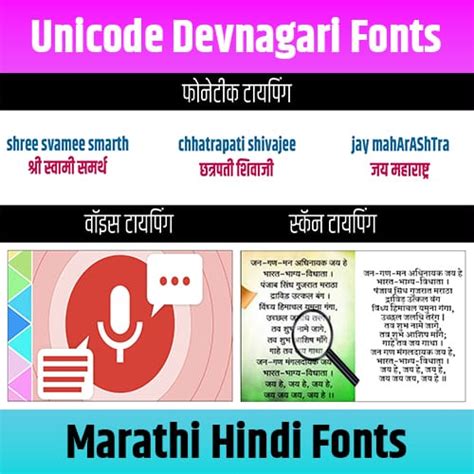
Marathi & Hindi Fonts: A Comprehensive Guide
Hey guys! Ever found yourself staring at your screen, needing to type in Marathi or Hindi, but feeling totally lost with the fonts? You’re not alone! Choosing the right font can seriously make or break how your content looks, whether it’s for a personal blog, a business project, or just a social media post. Today, we’re diving deep into the awesome world of Marathi and Hindi fonts , covering everything you need to know to make your text pop and be super readable. We’ll chat about why fonts matter, the popular choices out there, how to find and install them, and even some cool tips for using them effectively. So grab a chai, get comfy, and let’s get this font party started!
Why Fonts Matter for Marathi and Hindi
Alright, let’s get real for a sec. Why should we even care about which font we use for Marathi and Hindi? Well, fonts are basically the voice of your text . Think about it: the same words can sound formal, friendly, playful, or serious depending on the typeface. For Indian languages like Marathi and Hindi, this is super important because these scripts have their own unique beauty and structure. Using the wrong font can make the text look jumbled, hard to read, or even disrespectful to the language itself. A good font ensures clarity , making sure your message comes across loud and clear. It enhances readability, which is key for keeping your audience engaged. Imagine trying to read a novel printed in a tiny, fancy script – you’d probably give up pretty quickly, right? The same applies here. For businesses, a well-chosen font builds brand identity and professionalism. For bloggers and content creators, it helps create a distinct visual style that resonates with their audience. Plus, let’s be honest, a visually appealing font just makes reading more enjoyable. It’s all about making that connection with your reader through aesthetics and ease of understanding. So yeah, choosing the right font isn’t just a minor detail; it’s a crucial part of effective communication when dealing with the rich and beautiful scripts of Marathi and Hindi. It’s your first impression, your visual handshake, and the foundation of a great reading experience. Don’t underestimate the power of a good typeface, guys!
When it comes to typing in Marathi, there are a bunch of awesome fonts that have become super popular over the years. These aren’t just random fonts; they’re the ones that have stood the test of time and are widely recognized for their clarity and aesthetic appeal. One of the most iconic and widely used Marathi fonts is Kruti Dev 010 . You’ll see this font everywhere , especially in government documents, older publications, and even many websites. It has a very traditional and clear look, making it a go-to for formal communication. It’s a bit of a classic, like that reliable old friend who’s always there for you. Then we have the Mangal font . This one is particularly important because it’s a Unicode-based font, which means it’s much easier to use across different platforms and software. Mangal is known for its clean lines and modern feel, making it a great choice for contemporary websites, digital content, and general use. It’s definitely more user-friendly for digital applications compared to some of the older, non-Unicode fonts. Another solid contender is Arial Unicode MS . While not exclusively a Marathi font, it supports a vast range of Unicode characters, including Devanagari script, making it a versatile option. It’s a safe bet if you need something that works universally and looks clean. For those looking for something a bit more stylized, fonts like Lohit Marathi offer a slightly different visual flair while maintaining good readability. Lohit Marathi is often praised for its balance between traditional aesthetics and modern design principles. And let’s not forget about Devanagari MT . This is another Unicode font that provides a clear and legible representation of Marathi text. Many designers and developers prefer it for its consistency and professional appearance. When choosing, think about where you’ll be using the font. For official or print materials, Kruti Dev might be the traditional choice. For web and digital use, Unicode fonts like Mangal, Arial Unicode MS, Lohit Marathi, or Devanagari MT are generally the way to go because they ensure compatibility and ease of use. Remember, the goal is to make your Marathi text accessible and pleasant to read, and these popular fonts are your best bet for achieving that!
Just like with Marathi, Hindi has its own set of go-to fonts that make typing and reading in this beautiful language a breeze. The Hindi script, Devanagari, is used for both languages , so you’ll find a lot of overlap, but there are also specific fonts that are particularly favored for Hindi. Kruti Dev 010 makes another appearance here! Yep, it’s a classic for Hindi too, especially in certain types of official documents and typing contexts. It’s a non-Unicode font, which means it might require special software or keyboard layouts to use effectively, but its widespread use means many people are familiar with it. For more modern and web-friendly applications, Mangal is again a top pick. As a Unicode font, it offers great compatibility and a clean, readable appearance that’s perfect for websites, blogs, and digital communications. It’s the kind of font that just works seamlessly across different devices and platforms. Arial Unicode MS is another fantastic choice for Hindi, offering broad compatibility and a neutral, professional look. If you need a font that’s guaranteed to display correctly almost anywhere, this is a solid option. Lohit Hindi is a popular open-source font that provides a clear and attractive rendering of Hindi text. It’s often used in Linux environments and for general digital use, offering a good balance of style and legibility. For a more traditional yet accessible feel, Devanagari MT is also widely used for Hindi. It’s another Unicode font that ensures your Hindi text will look good and be easy to read on most devices. Beyond these, you might encounter fonts like Nirmala UI , which is a Microsoft font designed to support multiple scripts, including Devanagari, making it a good choice for Windows users seeking a clean, modern look for Hindi. When selecting a Hindi font, consider the context. For formal government work or specific legacy systems, Kruti Dev might be necessary. However, for almost all modern digital purposes – websites, emails, social media, documents – sticking with Unicode fonts like Mangal, Arial Unicode MS, Lohit Hindi, Devanagari MT, or Nirmala UI will give you the best experience in terms of compatibility, readability, and ease of use. These fonts ensure your message in Hindi is not just seen, but read and understood with clarity and style.
Using Unicode vs. Non-Unicode Fonts
This is a really important point, guys, and it can save you a lot of headaches: the difference between Unicode and non-Unicode fonts . Understanding this is key to making sure your Marathi and Hindi text is accessible and works everywhere. Unicode is basically a universal standard for encoding characters. Think of it as a giant, international dictionary that assigns a unique number to every letter, symbol, and emoji, no matter the language. For Marathi and Hindi, using Unicode fonts means the characters are represented in a standardized way. This is hugely beneficial because it ensures your text will display correctly across different devices, operating systems, and software without any special tricks. Fonts like Mangal, Lohit Marathi, Devanagari MT, and Arial Unicode MS are Unicode-based. They are generally easier to find, install, and use, especially for web content and modern applications. Non-Unicode fonts , on the other hand, use older, proprietary encoding systems. Kruti Dev 010 is the most famous example for Marathi and Hindi. While these fonts are still widely used in certain contexts (like specific government forms or older typing systems), they come with limitations. The biggest issue is compatibility. If someone doesn’t have the exact same non-Unicode font installed on their computer, or the correct keyboard layout, they might see gibberish instead of your beautiful Marathi or Hindi text. It can look like a bunch of random symbols! This makes them less ideal for websites or anything intended for a broad audience. If you’re working with older documents or systems that specifically require a non-Unicode font, you’ll need to be mindful of the keyboard mappings and ensure others have the necessary software. However, for most new projects, especially anything digital, sticking with Unicode fonts is the smartest move . It guarantees your content will be readable and accessible to everyone, which is ultimately what we want, right? It streamlines the whole process and makes sharing your work so much smoother.
Tips for Using Marathi and Hindi Fonts Effectively
Alright, we’ve covered why fonts are important, popular choices, and how to get them. Now let’s talk about making them work for you! Using Marathi and Hindi fonts effectively is all about making your content shine. First things first: readability is king! No matter how fancy a font looks, if people can’t easily read it, it’s failed its primary job. For Marathi and Hindi, pay attention to the clarity of the individual characters (aksharas) and the conjuncts (jodakshare). Fonts that have clear distinctions between similar-looking characters are best. Consider the context. Are you designing a formal document, a casual blog post, or a vibrant social media graphic? A formal report might call for a clean, traditional font like Mangal or Devanagari MT, while a creative piece might allow for something slightly more stylized, but still legible. Maintain consistency. Once you choose a font or a small set of complementary fonts for your project, stick with them. Mixing too many fonts can make your design look chaotic and unprofessional. Use different weights (like bold or regular) or sizes to create hierarchy, rather than introducing new font families unnecessarily. Think about font pairing. If you’re using a Marathi or Hindi font alongside an English font, choose pairs that complement each other. A highly stylized Devanagari font might pair well with a simple, sans-serif English font, for example. Avoid combinations that clash in style or weight. Test your fonts. Before you publish your content widely, preview it on different devices and screen resolutions. What looks great on your high-res desktop might be unreadable on a small mobile screen. This is especially crucial for web design. Use font features wisely. Some fonts offer stylistic alternates or ligatures. While these can add flair, use them sparingly and ensure they don’t compromise readability or cross-platform compatibility. And a pro-tip: If you’re creating graphics or web content, ensure your chosen fonts are properly licensed for your intended use. Many free fonts are available, but always check the terms. So, by keeping these tips in mind – prioritizing readability, considering context, staying consistent, pairing smartly, testing thoroughly, and using features wisely – you can ensure your Marathi and Hindi text not only looks good but also communicates effectively. Happy typing, everyone!
Font Size and Spacing
Guys, let’s talk about two often-overlooked but crucial elements for making your Marathi and Hindi text look amazing and be super easy to read: font size and spacing . Seriously, these little details can make a world of difference! Font size is your primary tool for controlling readability. For Marathi and Hindi, which have complex scripts with matras and conjuncts, a minimum font size is essential. What works for English might not be big enough here. For body text on websites or in documents, aim for at least 14-16 pixels (or points) for digital content. For print, 11-12 points is often a good starting point, but adjust based on the specific font’s x-height and your audience. Smaller text might be okay for headings or captions , but never for the main content if you want people to actually read it comfortably. Don’t be afraid to go a little bigger than you might think necessary, especially if your target audience includes older individuals or people who might be viewing your content on smaller screens. Now, let’s move on to spacing , which has two main components: line spacing (leading) and letter spacing (tracking/kerning). Line spacing is the space between lines of text. Too little, and the lines mush together, making it a headache to follow along. Too much, and the text can feel disconnected and sparse. For Marathi and Hindi, adequate line spacing is vital because the diacritics (matras) above and below characters can sometimes get close to the lines above or below. A line height of around 1.4 to 1.6 times the font size is usually a good starting point for digital text. For example, if your font is 16px, try a line height of 22-26px. Letter spacing refers to the space between individual letters. Consistent, appropriate letter spacing ensures that characters don’t crash into each other or feel too far apart . Most fonts have built-in kerning pairs to handle spacing between specific letter combinations correctly. However, sometimes you might need to slightly adjust the overall letter spacing (tracking) for aesthetic reasons or to improve legibility, especially with very large or very small text. Avoid making text too condensed or too stretched , as both can hinder reading. Remember, the goal with font size and spacing is to create a comfortable, flowing reading experience. It’s about guiding the reader’s eye smoothly through the text, allowing them to absorb the information without strain. So, play around with these settings, test them out, and find that sweet spot that makes your Marathi and Hindi content not just look good, but feel good to read too!
Accessibility Considerations
Finally, let’s wrap this up by talking about something super important: accessibility . When we create content in Marathi and Hindi, we want everyone to be able to access and enjoy it, right? That means thinking beyond just making it look pretty and considering users with different needs. The number one accessibility feature related to fonts is choosing readable, Unicode-compliant fonts. As we’ve discussed, Unicode fonts ensure your text displays correctly across various devices and assistive technologies, like screen readers. If you use a non-Unicode font and the text appears as gibberish to a screen reader, that user is completely locked out of your content. Beyond Unicode, font choice plays a huge role. Opt for fonts with clear, distinct characters. Avoid overly decorative or script-like fonts that can be difficult to distinguish, especially for people with visual impairments or dyslexia. Fonts with a good x-height (the height of lowercase letters like ‘x’) and clear ascenders and descenders (the parts of letters that go above or below the main body) generally offer better legibility. Sufficient contrast between the text color and the background color is also non-negotiable. Black text on a white background is the classic for a reason, but if you use other color combinations, ensure they meet accessibility standards (like WCAG guidelines). Don’t rely solely on color to convey information. Use text labels, icons, or other visual cues in addition to color. Allow users to resize text. While we can suggest optimal font sizes, users should ideally be able to zoom in or increase the font size through their browser or device settings without breaking the layout. Responsive design principles help a lot here. Provide alt text for images and ensure any text within images is also accessible (either through alt text or by having the text available in the document itself). When it comes to language-specific considerations for Marathi and Hindi, ensure you’re using the correct keyboard layouts and input methods during creation so that all the necessary characters and conjuncts are formed properly. Ultimately, making your Marathi and Hindi content accessible means being inclusive. It’s about ensuring that the richness and beauty of these languages can be appreciated by the widest possible audience, regardless of their abilities or the technology they use. It’s good practice, it’s ethical, and it makes your content more valuable to everyone.
So there you have it, folks! We’ve journeyed through the essential world of Marathi and Hindi fonts, covering why they matter, exploring popular choices like Kruti Dev and Mangal, learning how to find and install them, and diving into crucial aspects like Unicode compatibility, effective usage tips, and accessibility. Remember, choosing the right font isn’t just about aesthetics; it’s about clear communication, user experience, and inclusivity. Whether you’re a blogger, a student, a designer, or just someone trying to type a message, investing a little time in understanding fonts will pay off big time. By prioritizing readability, consistency, and accessibility, you can ensure your Marathi and Hindi content not only looks professional but also resonates with your audience. So go forth, experiment with these fonts, and make your words shine! Happy typing!